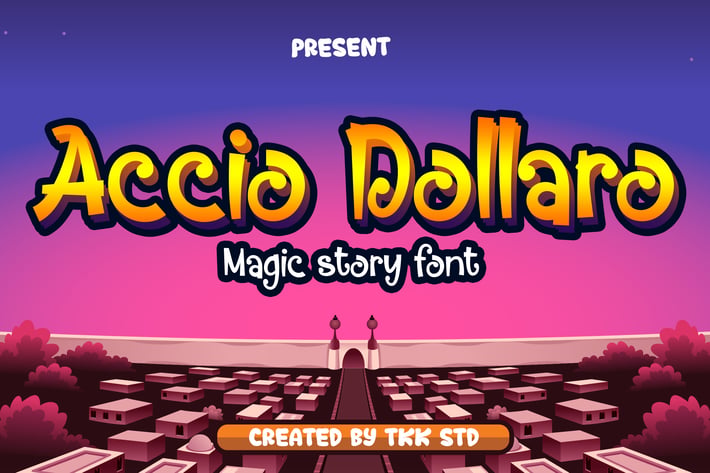
Funny Font - Accio Dollaro
Accio Dollaro - Funny magic font
Let the magic begin with Accio Dollaro, a whimsical display font that brings the joy of fantasy stories, playful adventures, and animated fun into every letter. This enchanting typeface combines bubbly curves with bold strokes, making it ideal for kid-themed projects, game titles, magical branding, playful packaging, or anything that needs a touch of charm and mischief!
Whether you're designing a fairytale book cover, candy label, YouTube thumbnail, or a birthday invitation – Accio Dollaro gives you the spellbinding power to make words come alive.
What Makes It Magical?
Bold & Bubbly – Strong presence with a quirky personality
Fantasy-Inspired Style – Perfect for wizards, dragons, and dreamlands
Highly Readable – Even with its fun shapes, it stays clear and eye-catching
Universal Appeal – Works well for kids, merchandise, games, or story titles